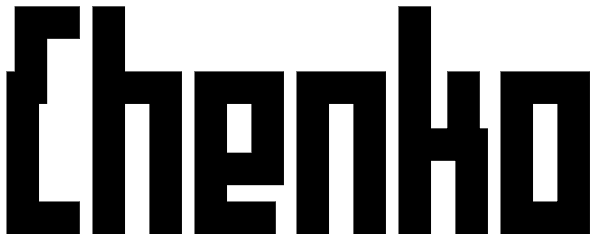
Chenko
Chenko is a nod to Alexander Rodchenko the Russian Constructivist artist and designer whose poster work is characterised by its stark, stripped down typography and bold, geometric graphics. It was truly revolutionary in its day, and continues to be...
Chenko